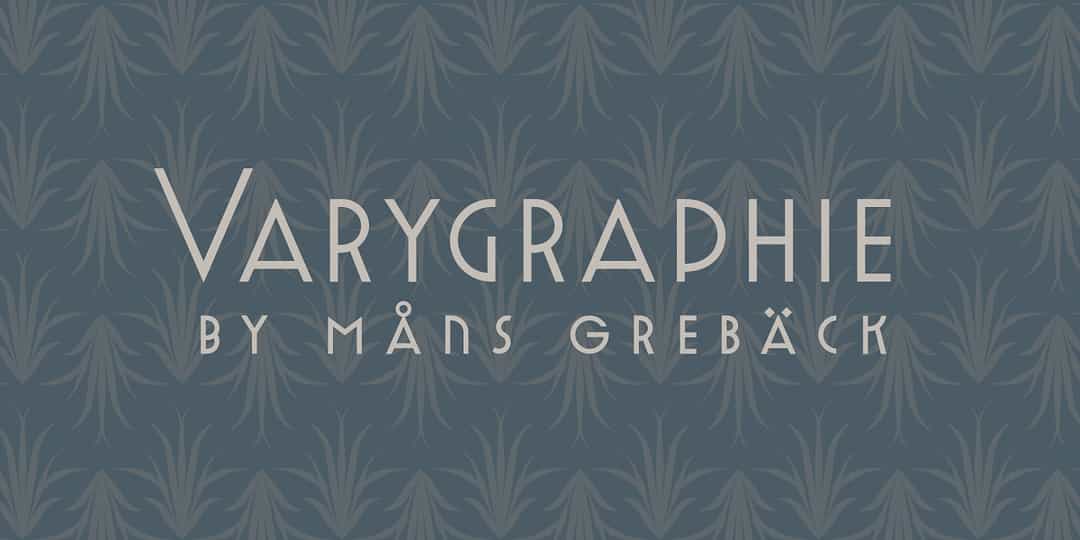
Varygraphie is an geometric sans serif font with contemporary, minimalist, elegant and bold features. Created by Mans Greback between 2019-2023 as a variable font option, it gives projects an updated aesthetic while at the same time reinventing a century-old style of design for modern needs and technologies.